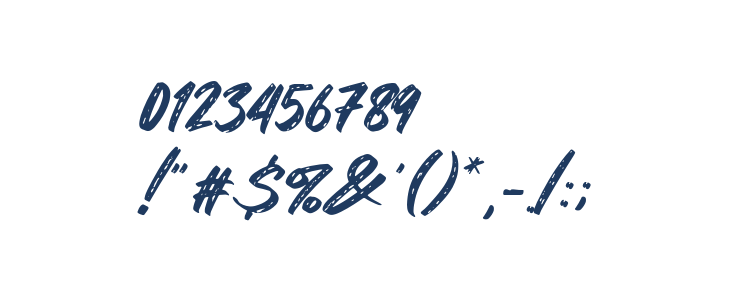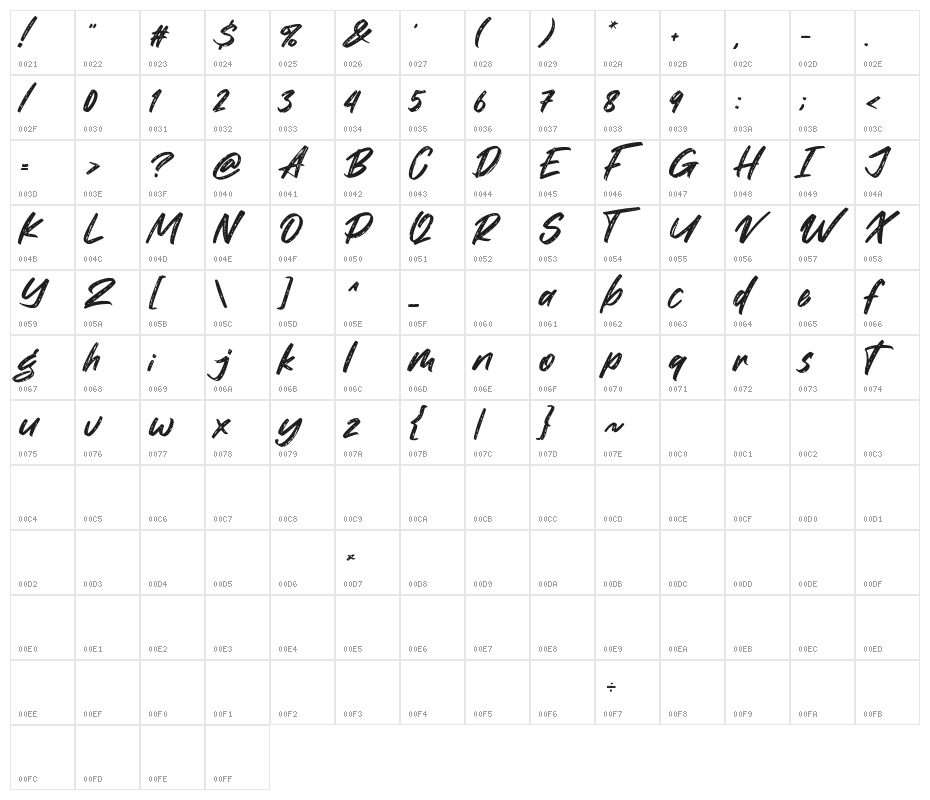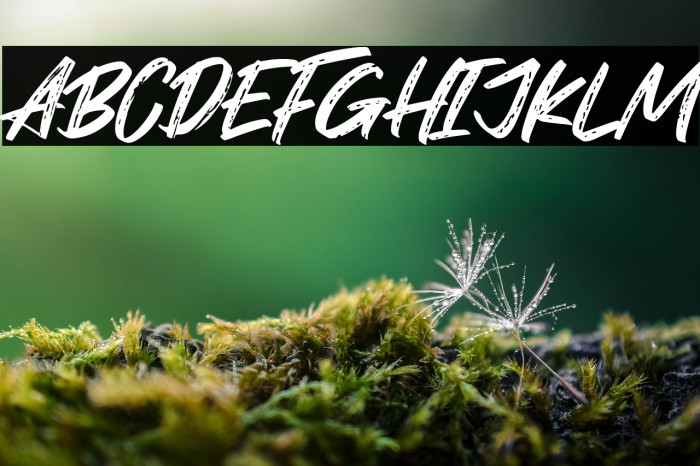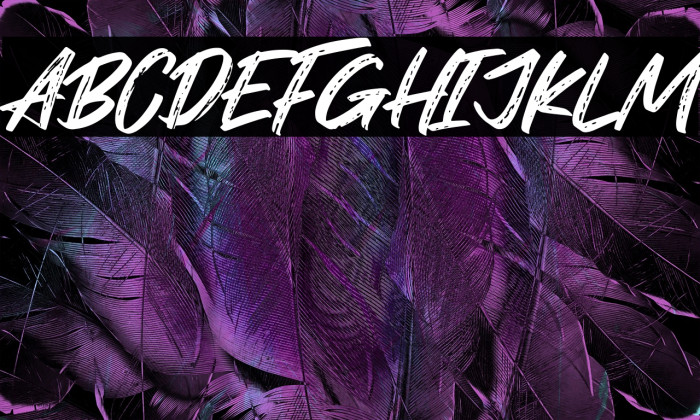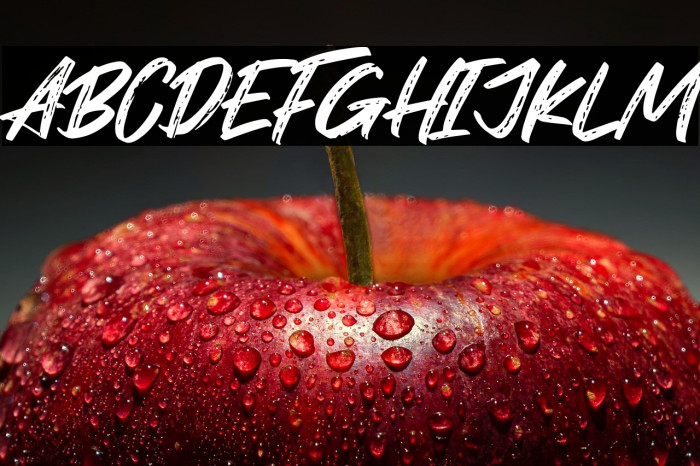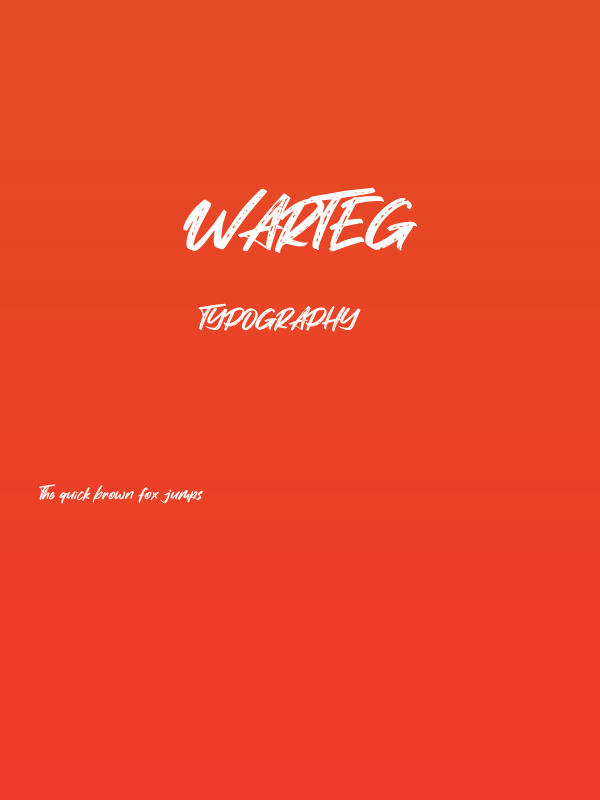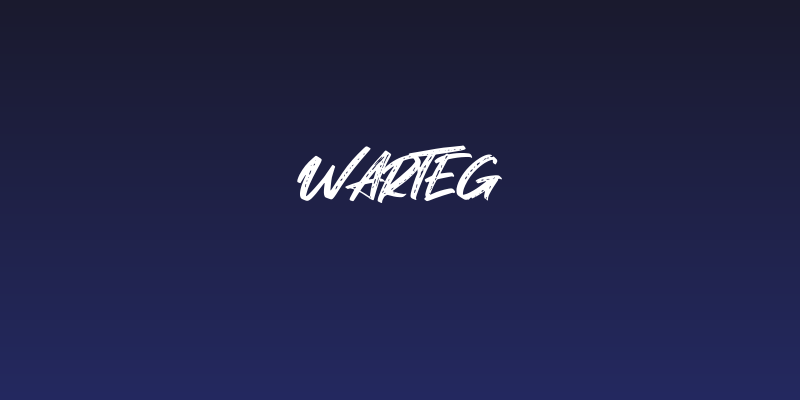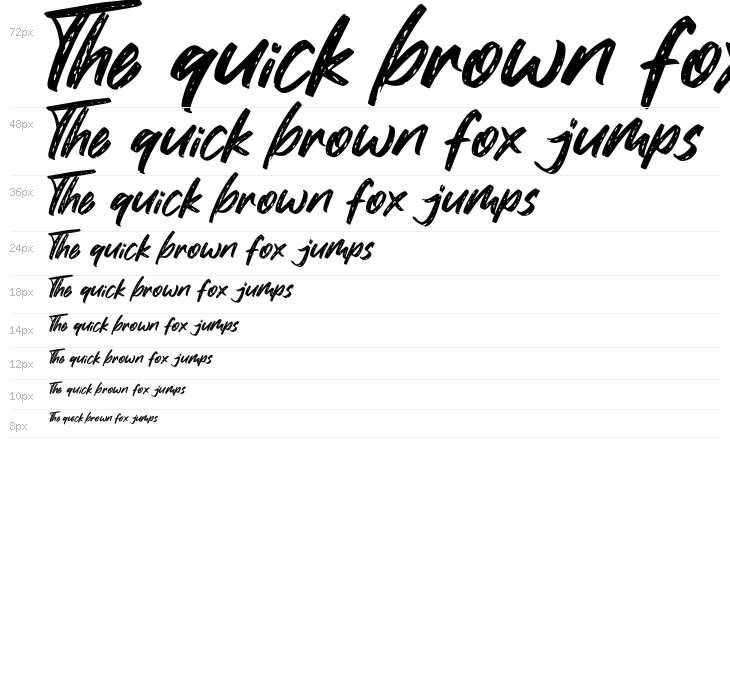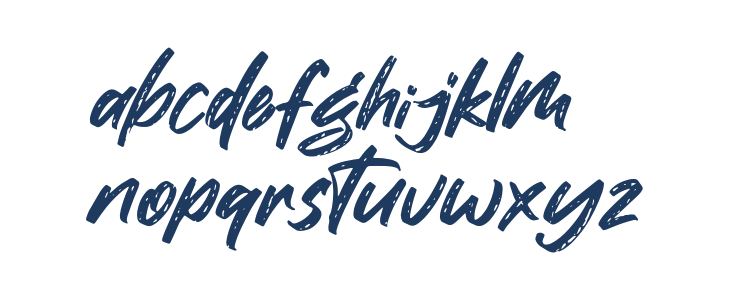
Warteg Font
Warteg Description
This font features a bold, expressive style with a handwritten appearance, characterized by its dynamic and energetic strokes. The letters are slightly slanted, giving a sense of movement and fluidity. The texture is rough, with visible brush-like strokes that add a raw, artistic feel. The uppercase and lowercase letters maintain a consistent style, while the numbers and special characters complement the overall aesthetic. This font is ideal for projects that require a personal, creative touch, such as posters, branding, and artistic designs.
| Use Case | Logos, Headlines, Artistic designs |
| Proposed Projects | Ideal for posters, branding, artistic designs, and creative projects. |